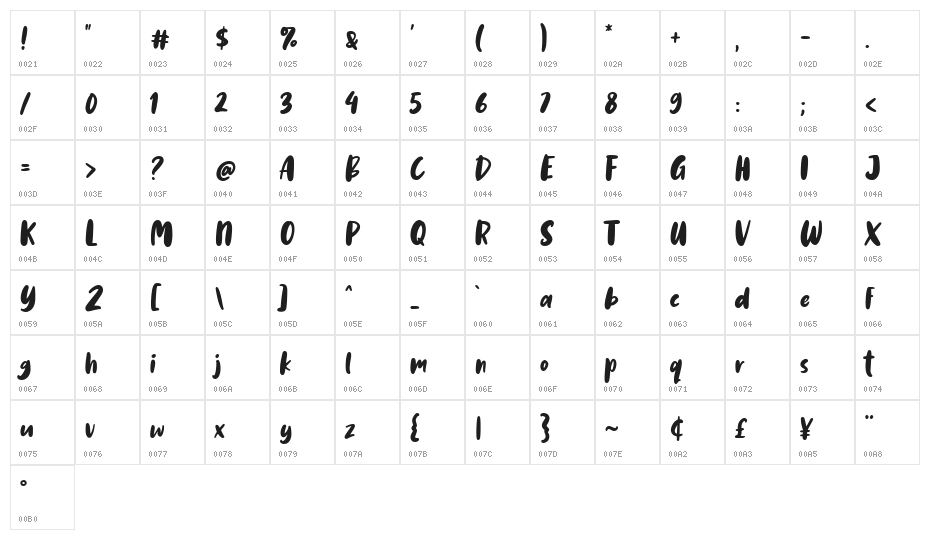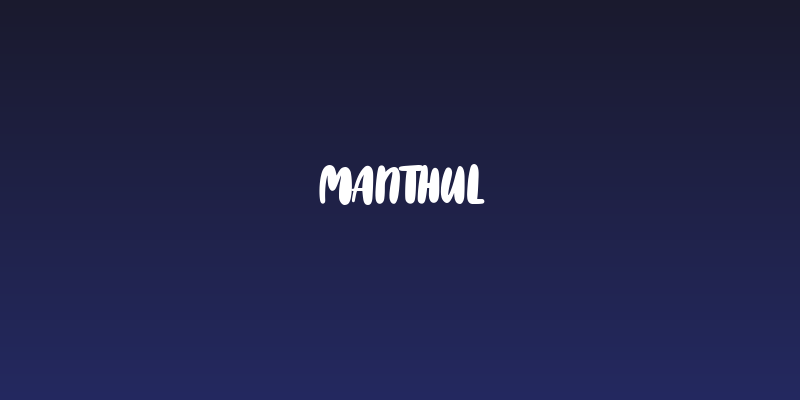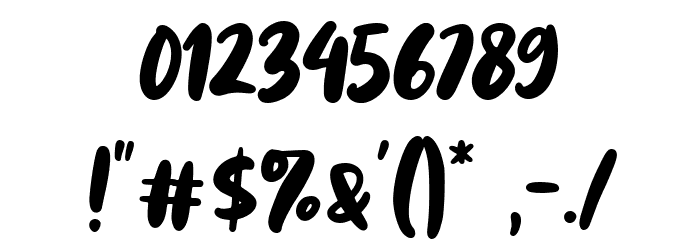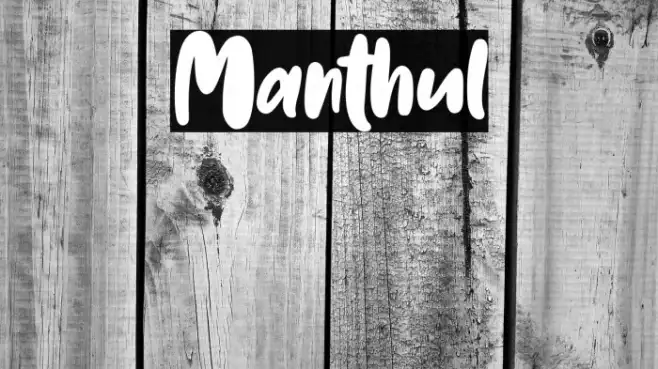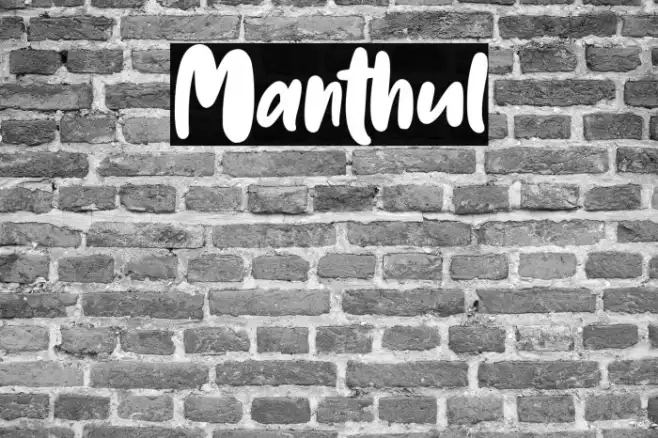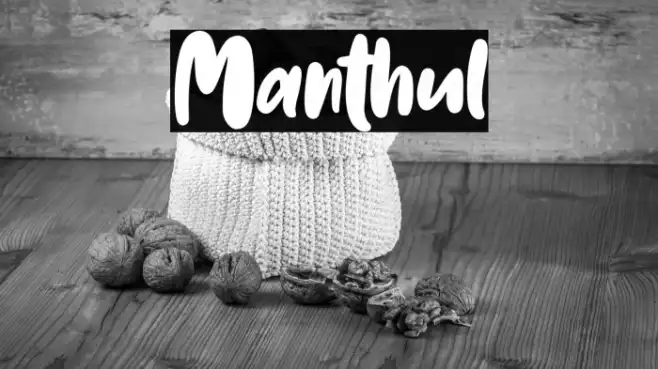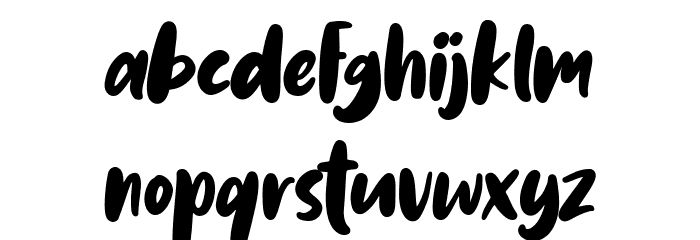
Manthul Font
Manthul Description
This font features a bold and expressive style with a handwritten appearance. The characters are thick and rounded, giving a playful and energetic feel. The uppercase letters are slightly taller and more pronounced, while the lowercase letters maintain a consistent flow. Numbers and special characters are designed to match the overall style, ensuring a cohesive look. The font's strokes are smooth and consistent, making it suitable for designs that require a personal touch.
| Proposed Projects | Ideal for branding, posters, social media graphics, and invitations where a personal and lively touch is desired. |